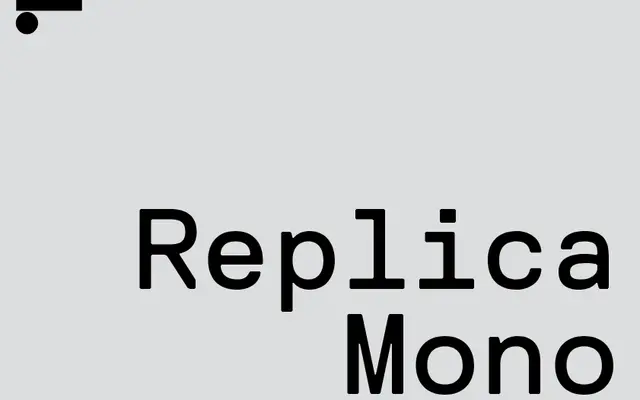
Replica Mono
The monospaced variant of Norm's Replica, a Swiss grotesque with a stem width noticeably wider than Helvetica's.
Replica Mono extracts the fixed-width cut from the Replica family, designed by the Swiss studio Norm as the neutral spine of a deliberately lean type system. The parent family was built with a Regular stem around 10% wider than Helvetica, giving it a slightly denser texture at small sizes whilst remaining unremarkable at a glance. Released as a standalone mono cut, it suits editorial and screen contexts where a workhorse monospace with grotesque ancestry is preferred over more expressive coding faces.
Replica Mono is the monospaced cut of the Replica family, itself a grotesque sans developed by the Swiss design studio Norm; the mono variant applies fixed-width spacing to the same neutral, slightly wide grotesque skeleton.